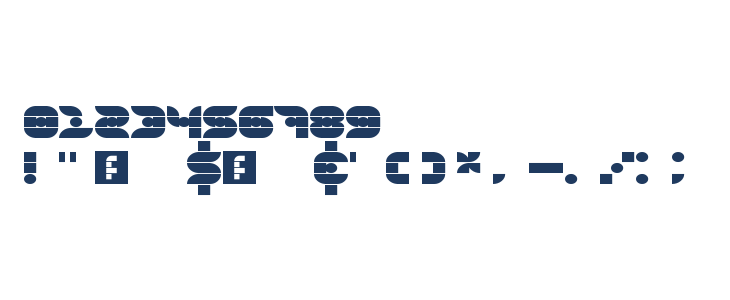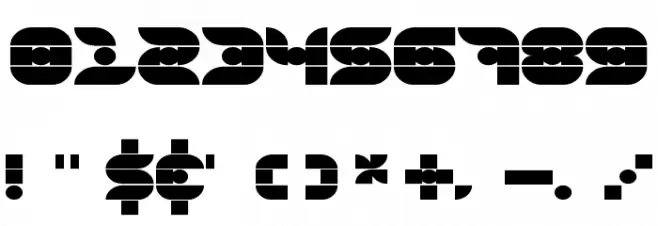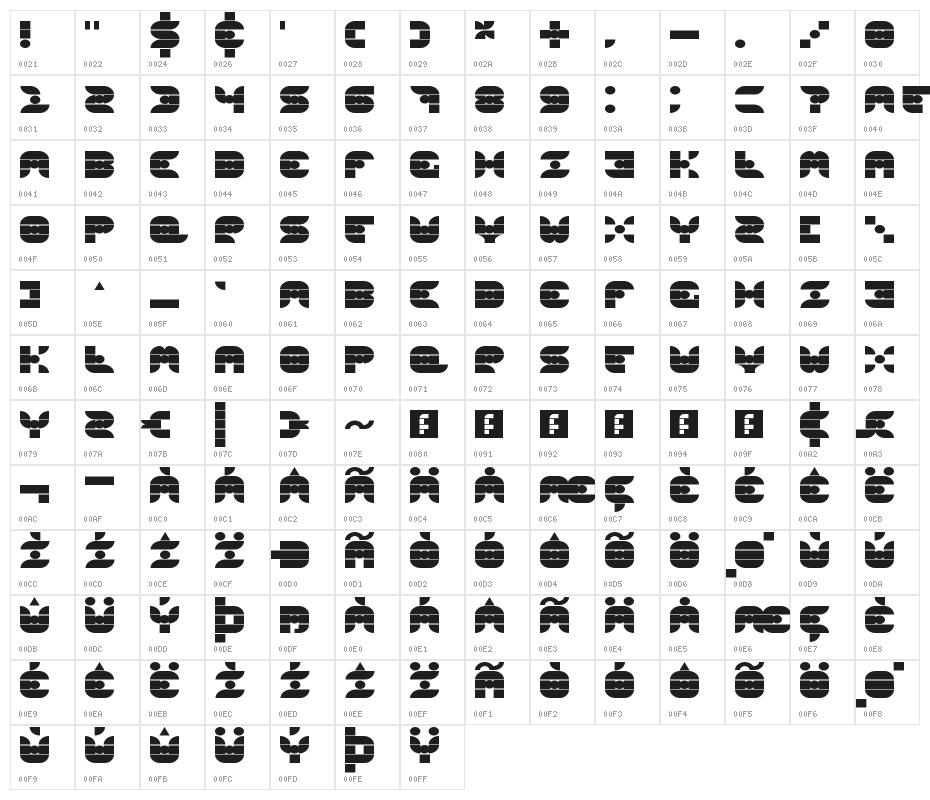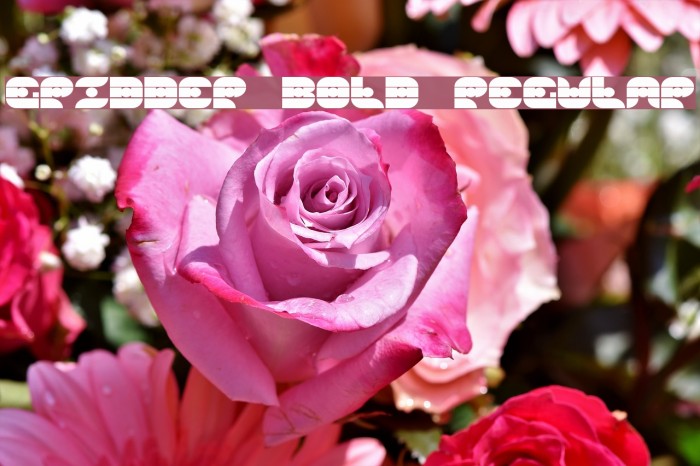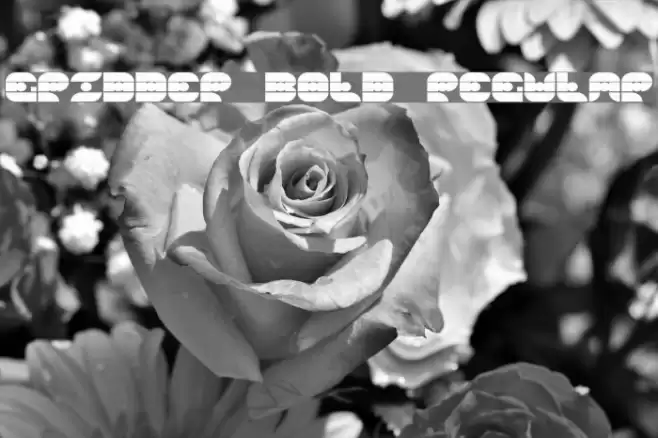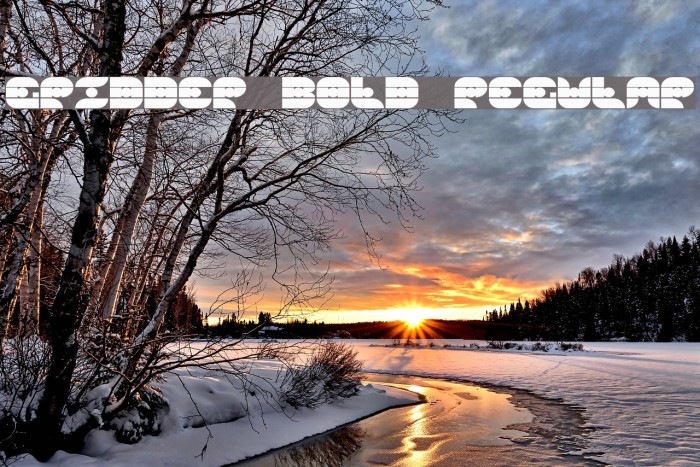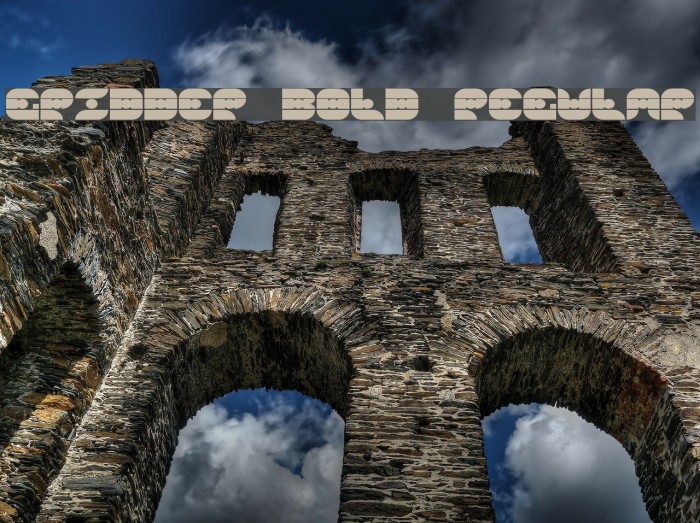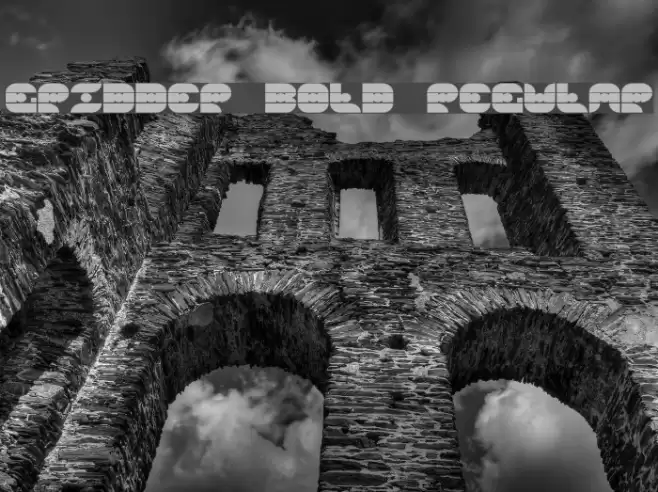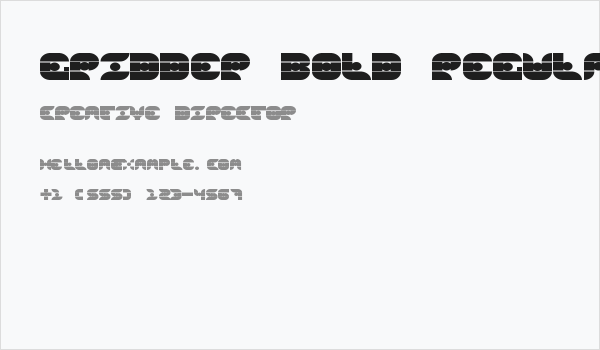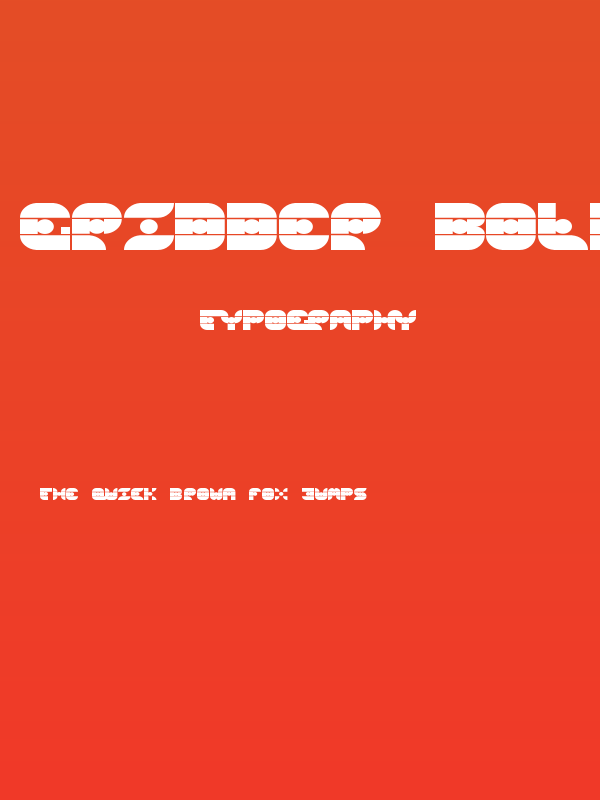
Gridder Bold Regular Font
Gridder Bold Regular Description
This font features a bold and geometric design with a futuristic and digital aesthetic. Each character is constructed using a grid-like pattern, creating a sense of structure and uniformity. The letters are composed of thick, solid lines with rounded edges, giving them a modern and sleek appearance. The use of horizontal and vertical segments within each character adds a unique visual interest, making it stand out in any design. The font maintains a consistent weight throughout, ensuring readability while still offering a distinctive style. Its boldness and geometric nature make it suitable for attention-grabbing headlines and display purposes.
| Proposed Projects | Ideal for technology branding, digital media, futuristic posters, and modern advertising campaigns. |